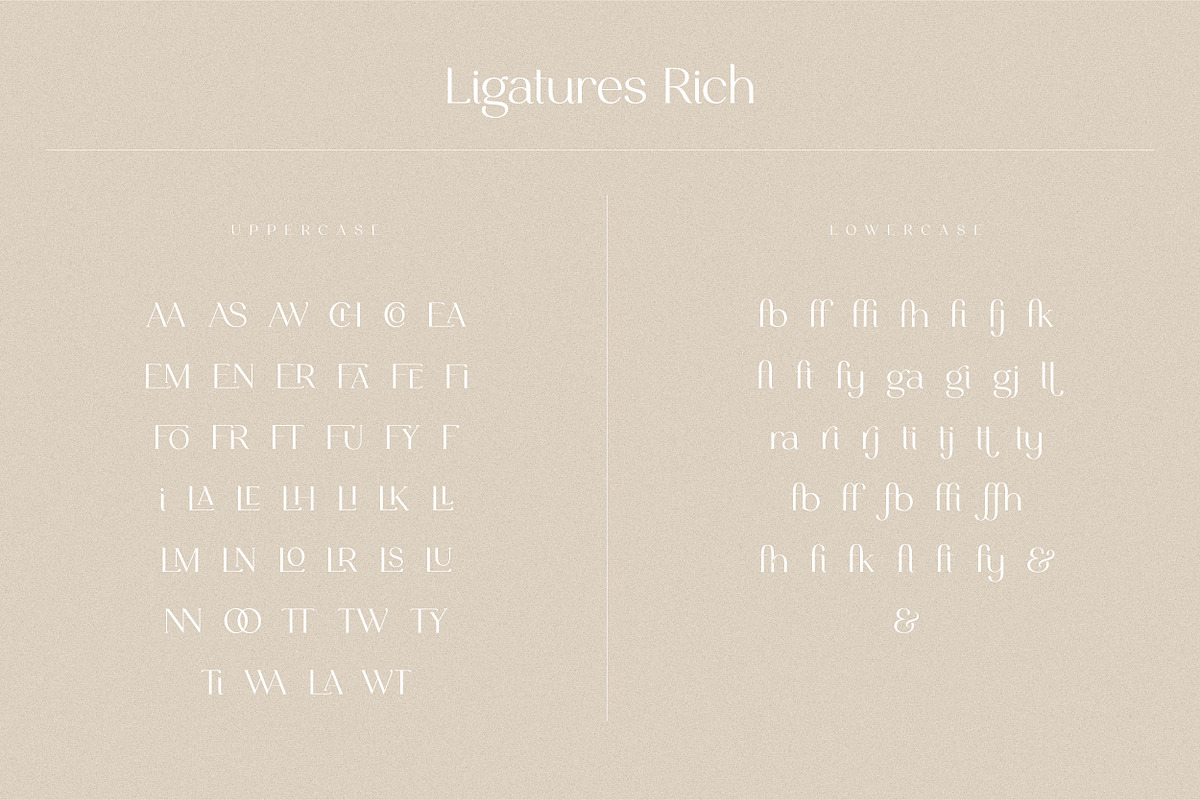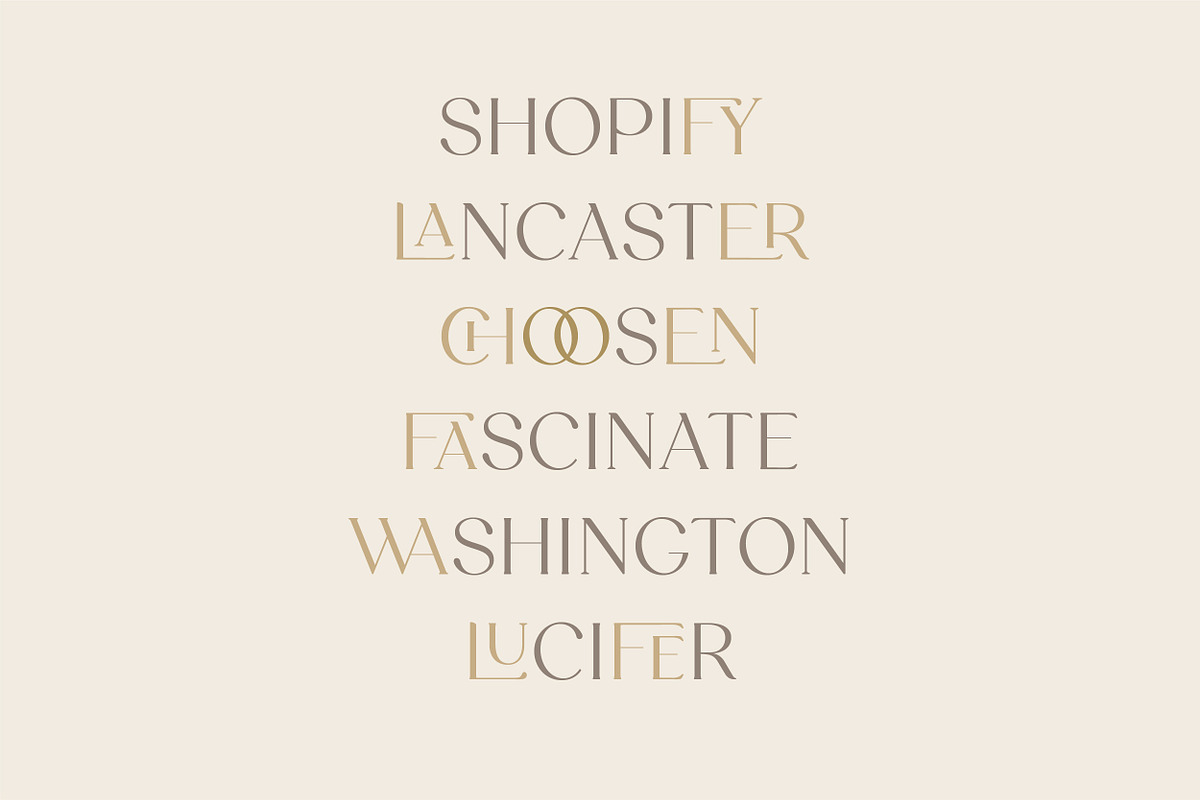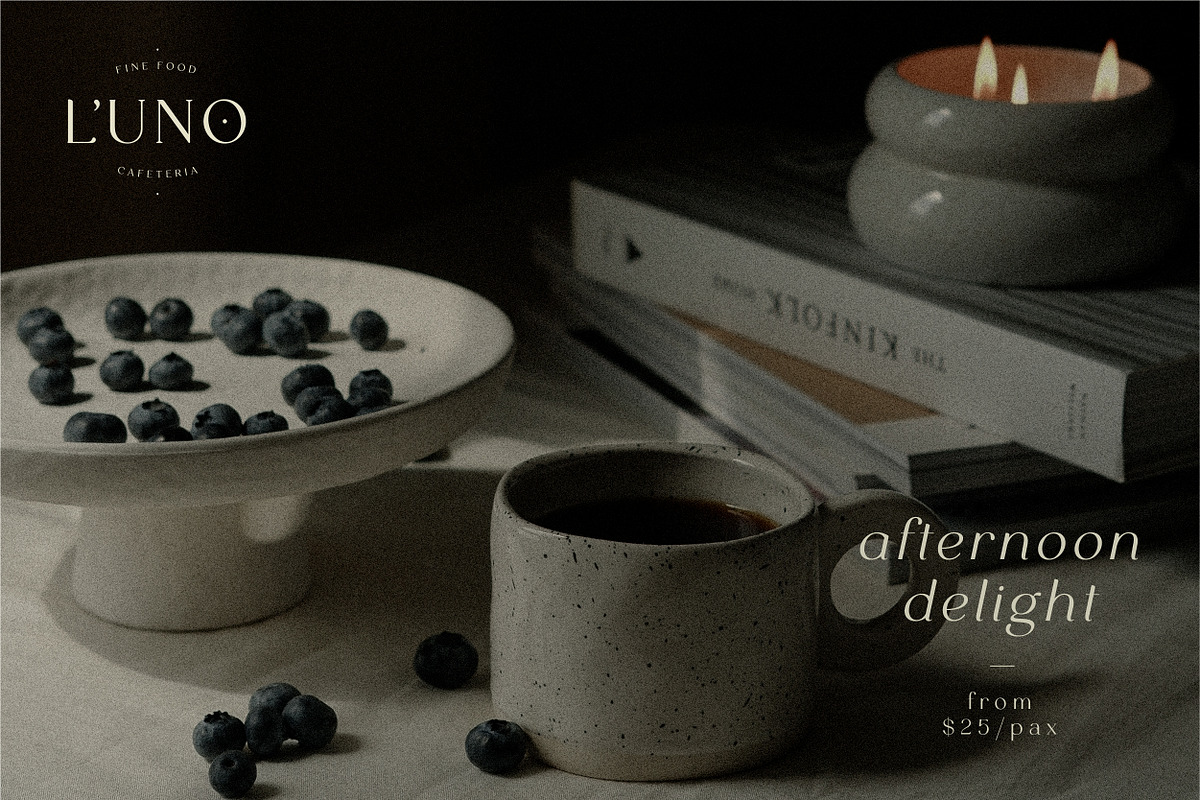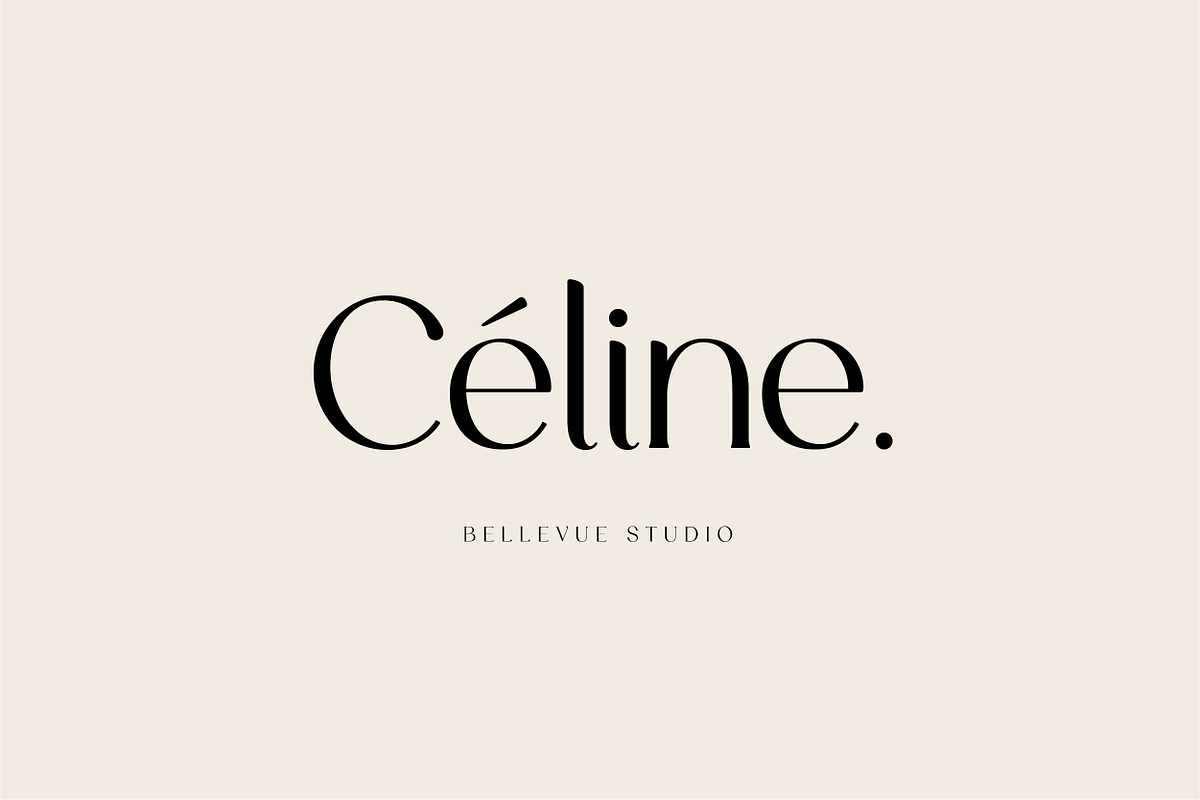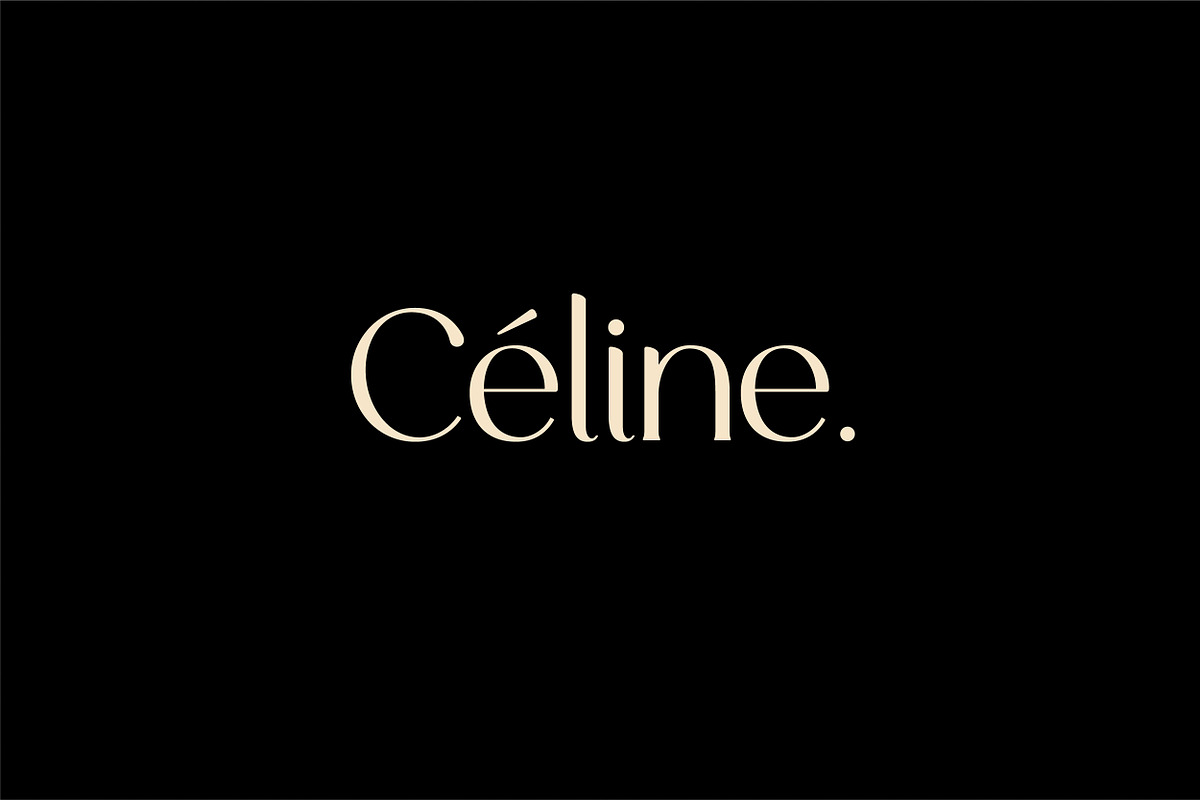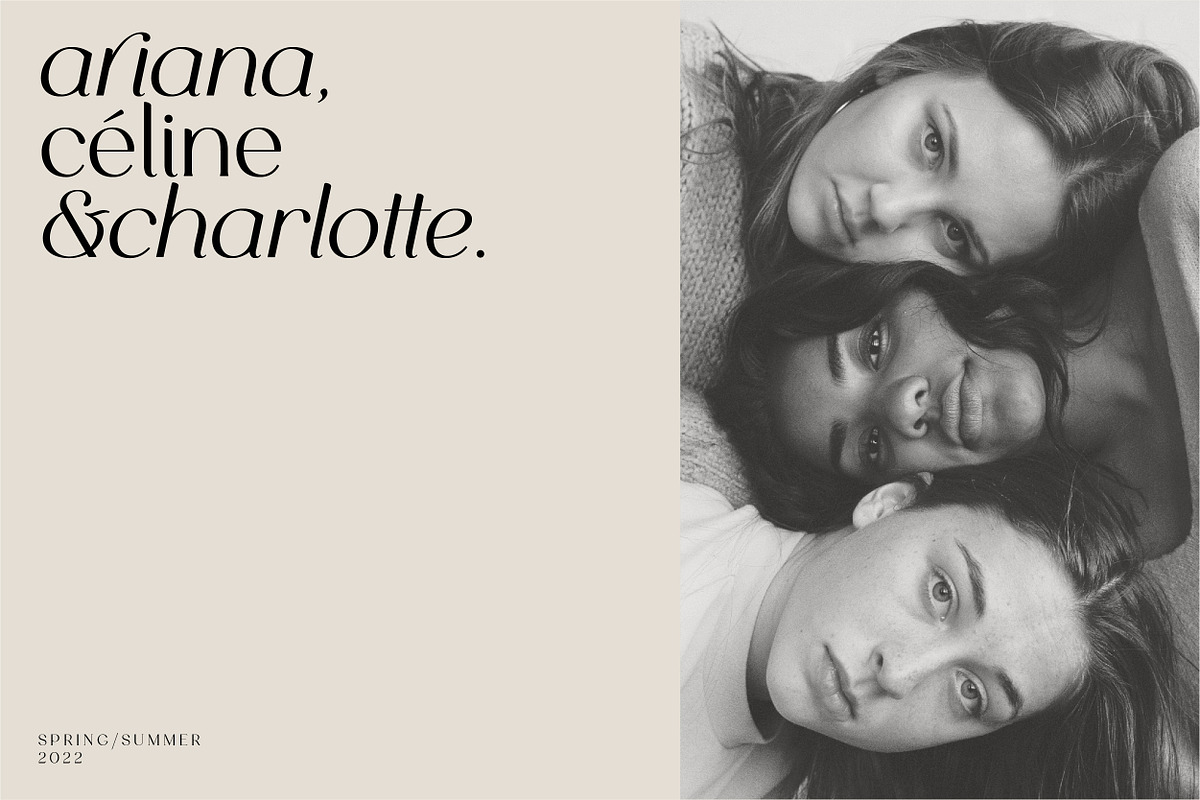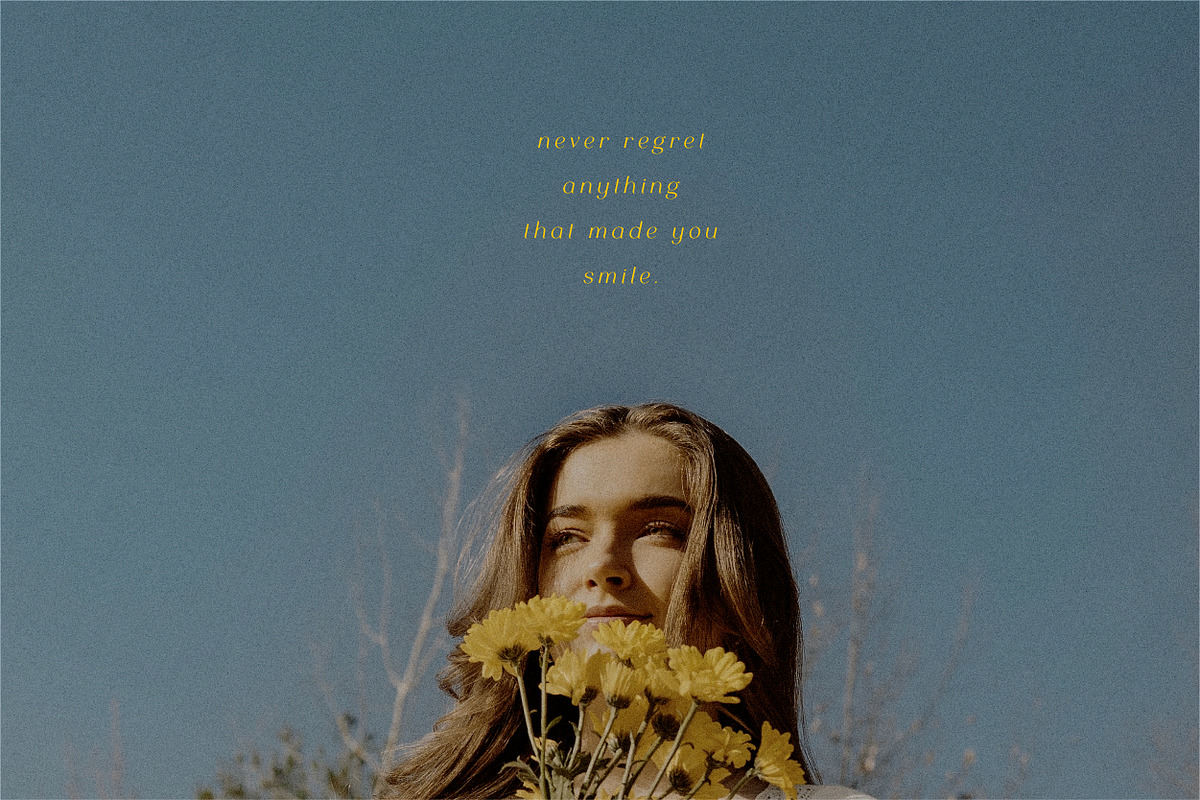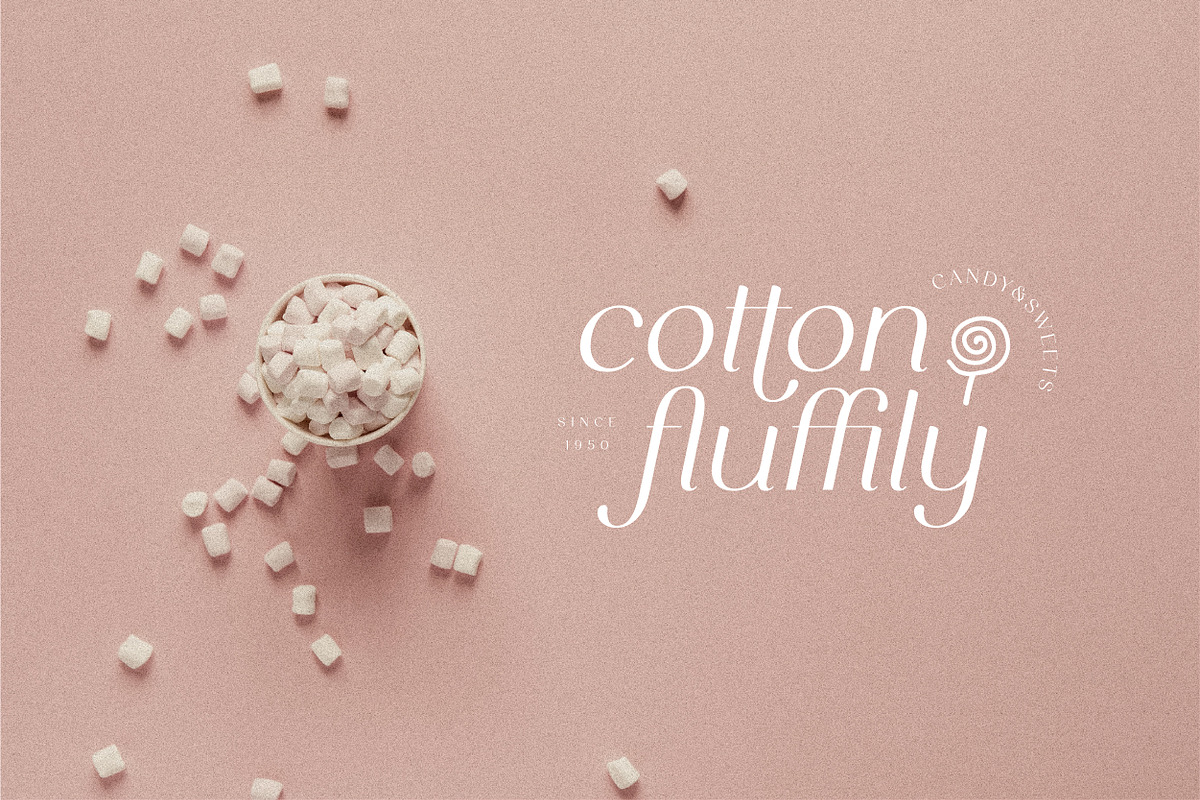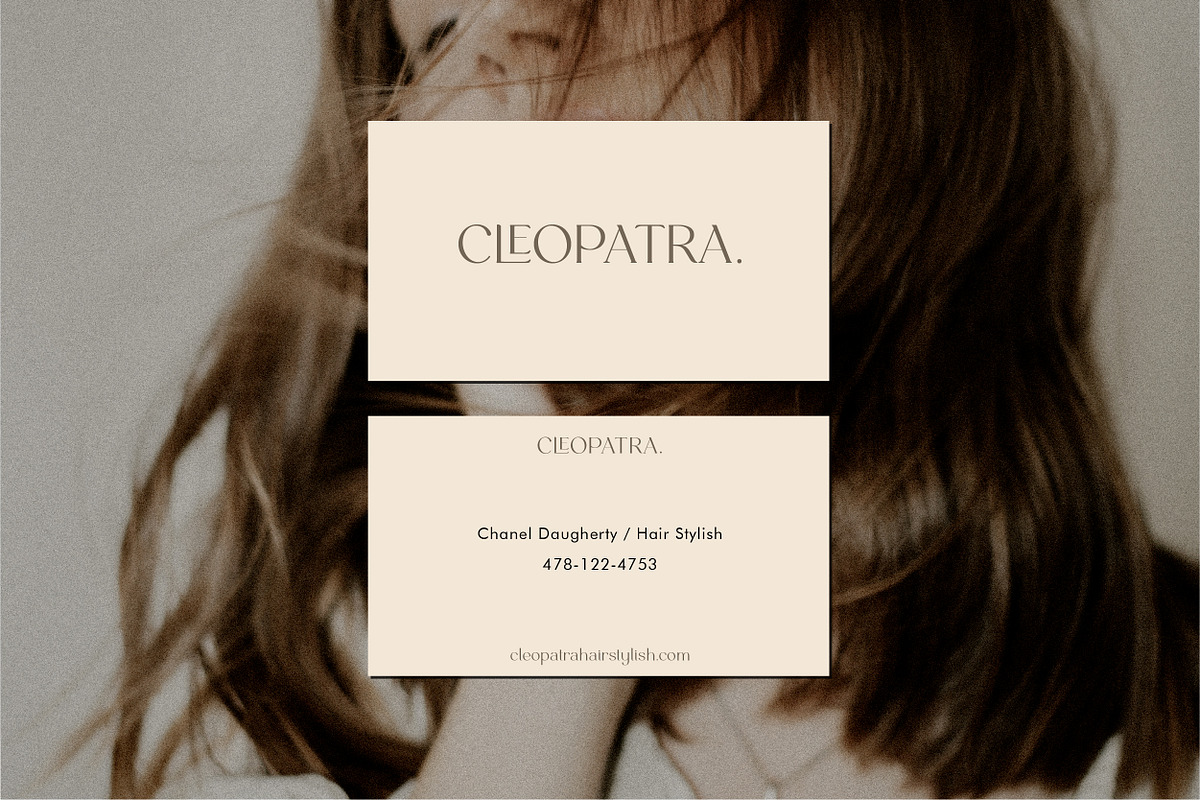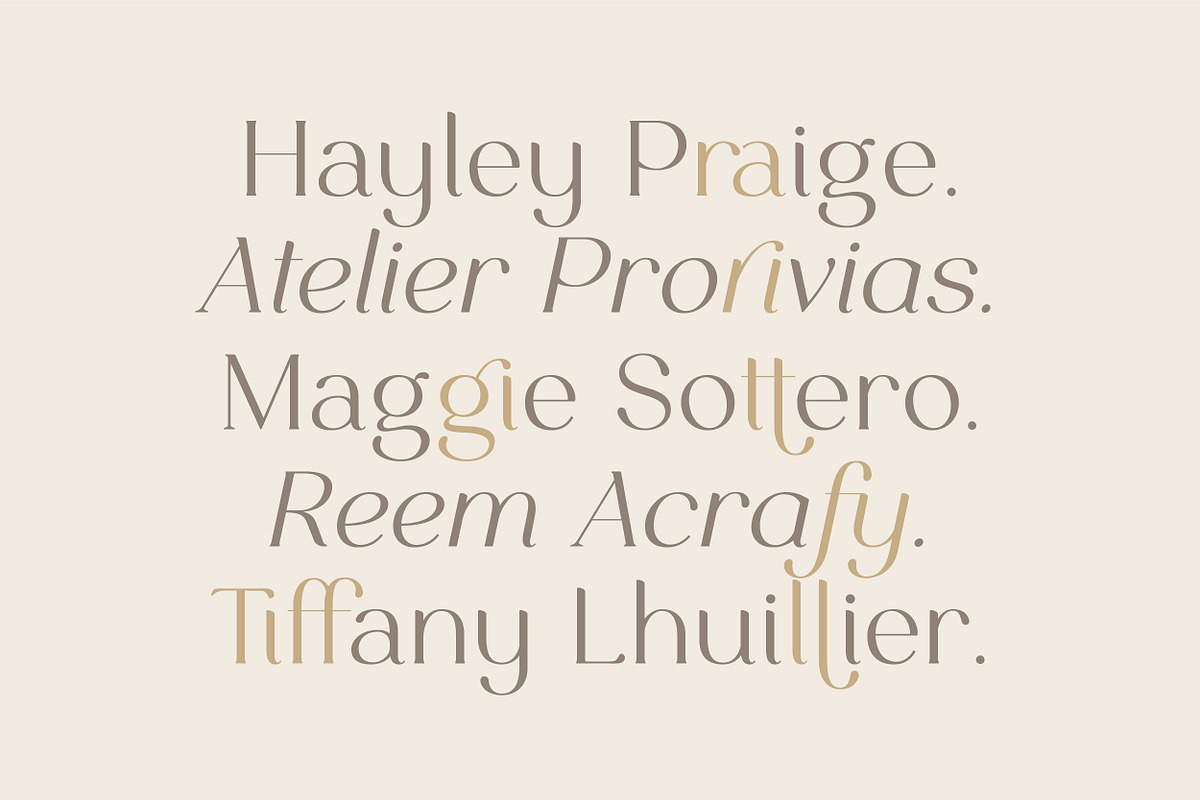
Celine - Delicate Playful Serif
Celine - a clean and delicate typeface with a touch of playfulness. This typeface features many options of alternates and ligatures, perfectly suitable for creating designs such as packaging, logos or title.
BV CELINE FEATURES:
- Europeans languages
- Vietnamese